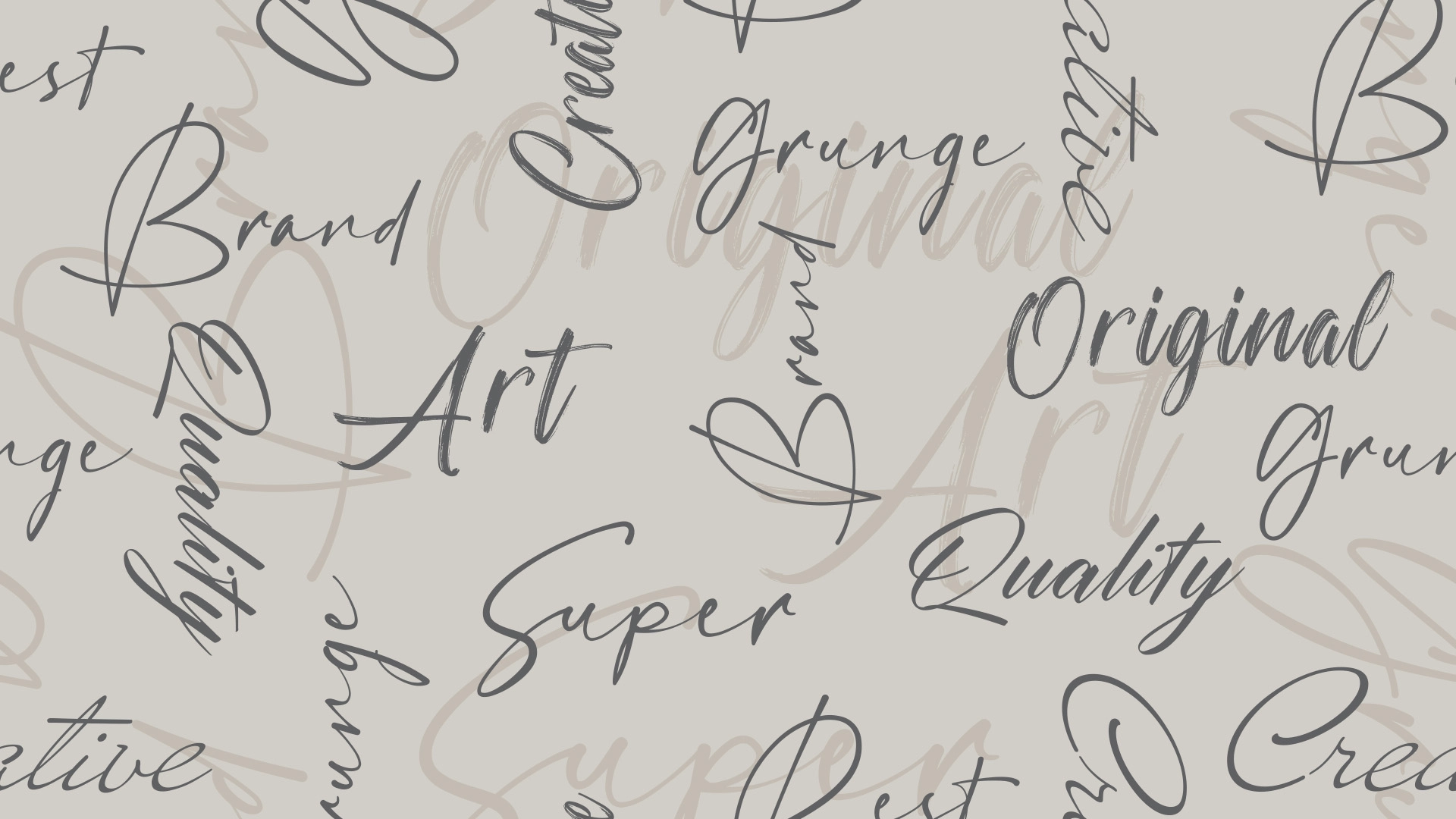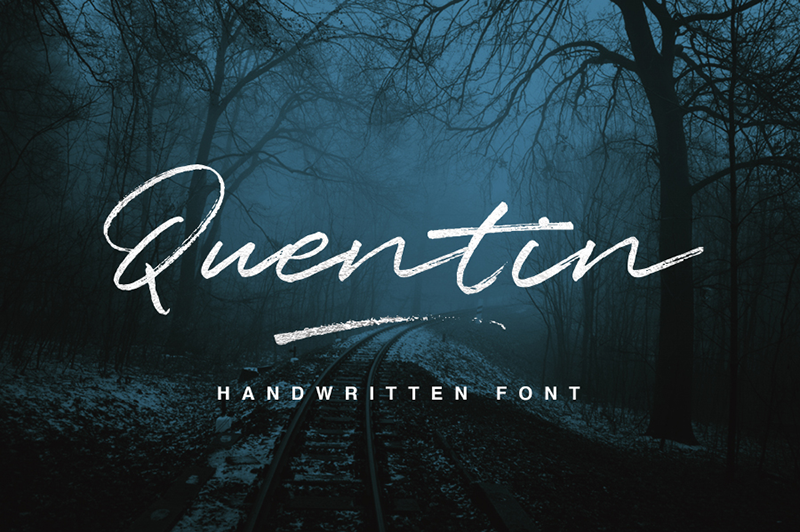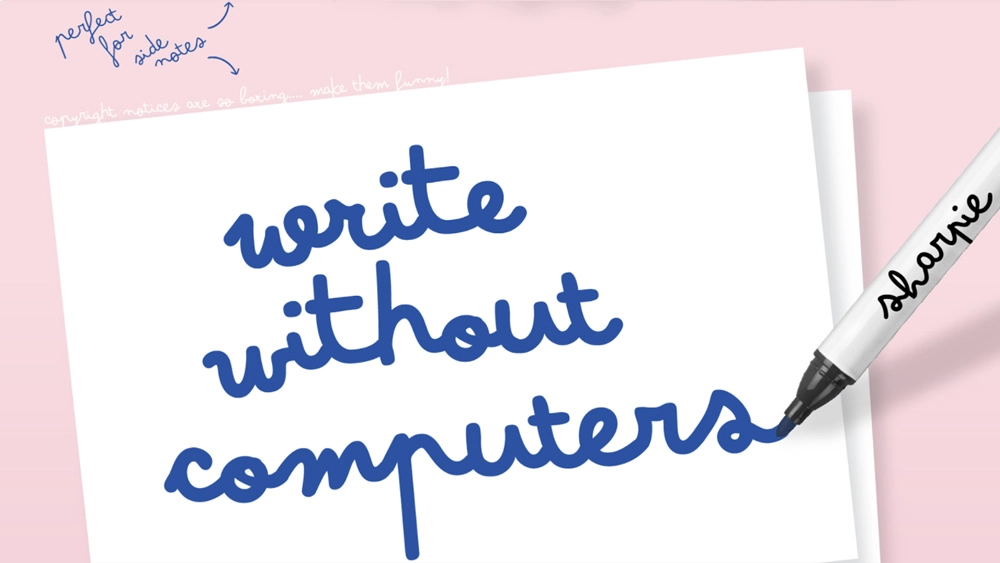
The best free script fonts to give your designs the personal touch
Discover free script fonts to elevate your design projects.
With plenty of free script fonts available online, we can sometimes feel spoilt for choice. Adding cursive fonts to your projects can bring a unique personal touch, so to help you find the perfect typographic companion, we've compiled this handy list of the best free script fonts.
Whether you're designing a personal wedding invite or a large-scale client project, there's likely a free script font perfect for you, whether you're after bold contemporary brush strokes or delicate, handwritten calligraphy. Make sure to check out our guide to the best font pairings to help balance your design, and if you're looking for a more bespoke look, our best handwriting fonts guide is here to help.
Best free script fonts available today
01. Mayonice
Clean yet characterful, Mayonice is a 100% free font created by Indonesian design company Khurasan. With its contemporary feel, Mayonice is a great script font option to add an elevated appeal to your project. Pair it with one of the tried and true professional fonts for designers for the ultimate classy look.
Article continues below02. Quentin
A smooth, fluid script font with gorgeous texture, this font is my favourite pick on the list. It's got a natural feel, perfect for projects when you want to add an understated yet eye-catching element that could have been written by you.
03. Brushberry
Produced at My Creative Land, Brushberry is a pretty but bold typeface that would work perfectly for wedding or party invitations. Akin to some of the best handwriting fonts, this delightful font highlights the beauty of calligraphy.
04. Sant’Elia Rough
This font has a retro, vintage feel, creating a real sense of nostalgia. Ideal for advertising and leaflets, this script has a distinct style that is sure to garner attention. With the texture of graffiti fonts without quite so much attitude, this 'rough' yet clean design is perfect for legibility with added personality.
The creator Ryan Martinson has crafted a range of designs that have featured in campaigns across different media streams such as American Express, Wholefoods and the National Geographic Channel.
05. Choko Milky
Choko Milky is a free script font that's bursting with personality. With its bold bubbly style, it's perfect for adding a dose of retro appeal to your projects. Ideal for websites, invitations and any project that needs an energetic boost, it pairs beautifully with bright colours and cartoon style visuals.
06. Satisfy
Designed by Sideshow, Satisfy offers a modern twist on a classic script look. Note that the glyphs are joined together, giving this brush-script, display font an authentic handwritten feel. In a sea of samey free script fonts, this simple yet effective type will help your projects stand out from the crowd.
07. America
You don't see a lot of free fonts based on hit songs, but here's the exception. Inspired by Childish Gambino’s This is America, it boasts large dramatic capitals and a natural flowing stroke. This bold textured script font features a full upper- and lower-case character set, plus several alternate characters.
08. Ochre
If you’re seeking free script fonts that evoke an atmosphere of elegance and romance, then you might like Ochre Script. Designed by Gizem Kiliç, this hand-drawn calligraphy font will help you add a personal feel to wedding stationery, cards, letters, invitations and similar designs.
09. Raindy Monoline
Raindy Monoline is a heavy yet adorable script font. With its looping, joined glyphs and soft curves, it's perfect for cutesy projects that need a cheerful feel, and will add an element of calm too. A good option for branding projects, logos, wedding designs, social media posts, advertisements and product packaging.
10. Hoodson Script
With a bouncy baseline and a bonus Swash set, this free script font packs plenty of punch and personality into every curve. Hoodson Script is the work of Hendra Maulia and is suitable for logos, handwritten quotes, product packaging, header, posters, merchandise and greeting cards.
11. Serendipity
Of all the free cursive fonts we've spotted of late, Serendipity is one of the most inspired. Created by The HungryJPEG and featuring more than 90 hand-drawn characters, it enables you to add a dash of originality and individuality to your lettering and logo designs.
12. Vegan Style